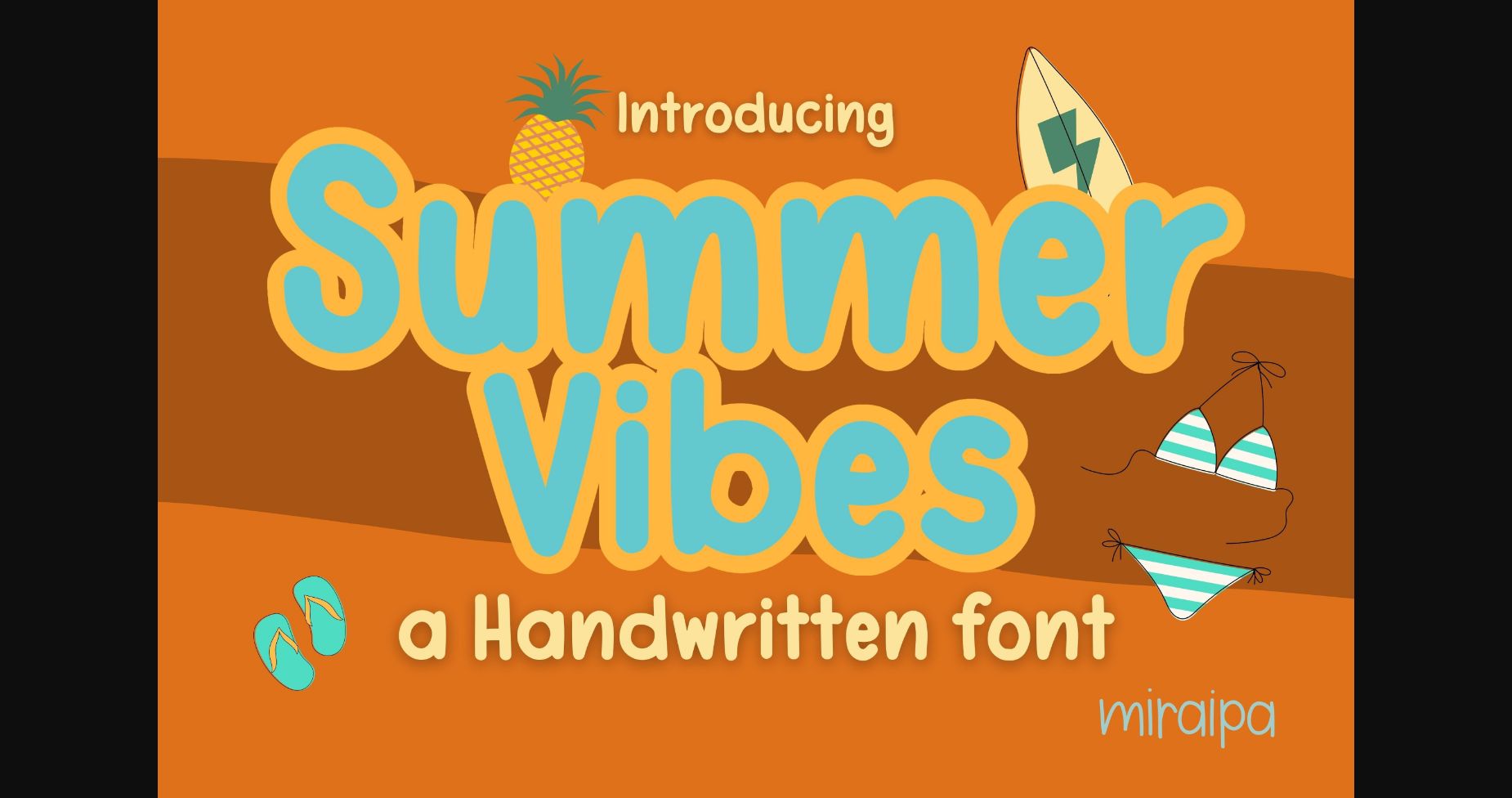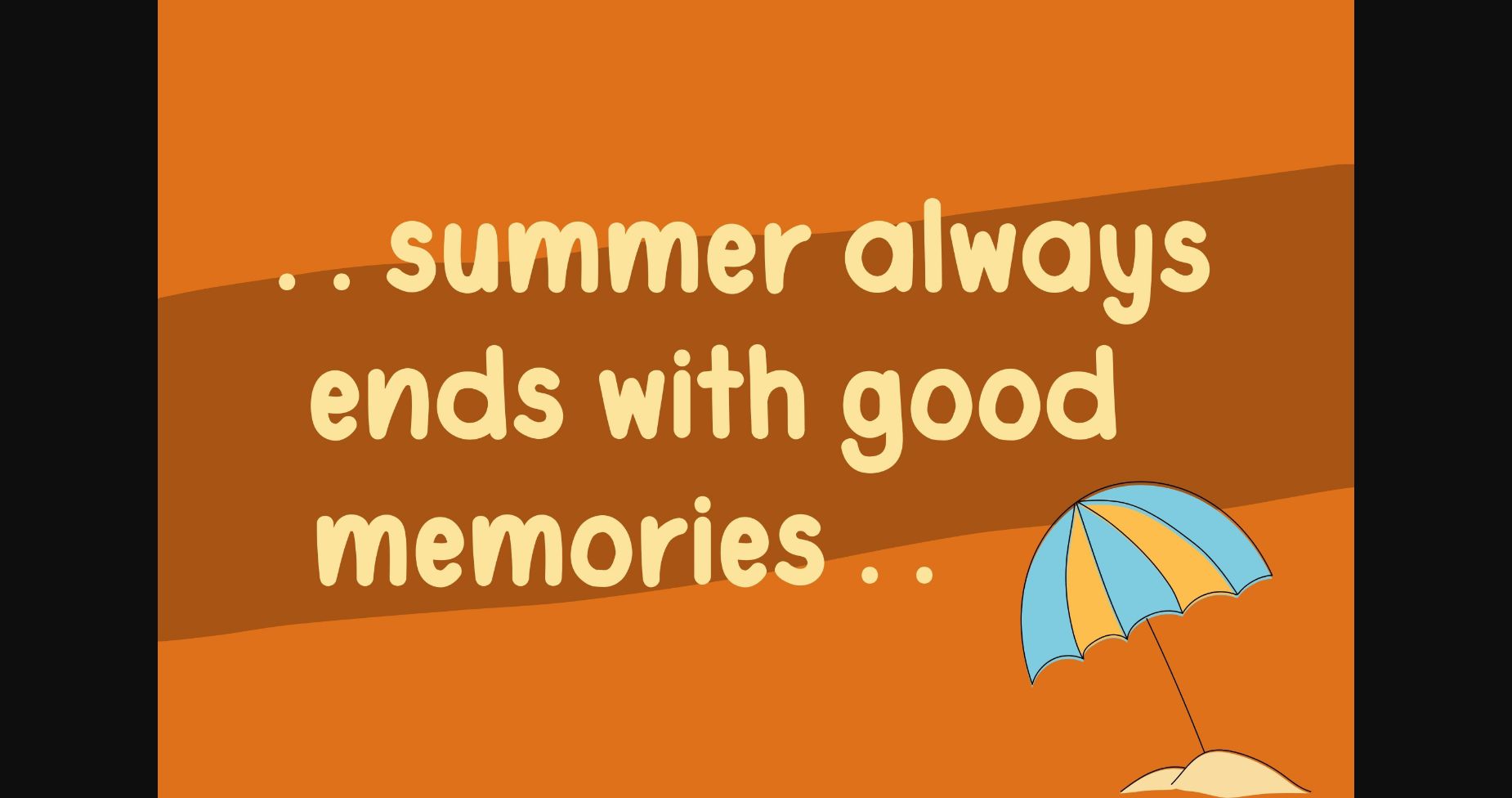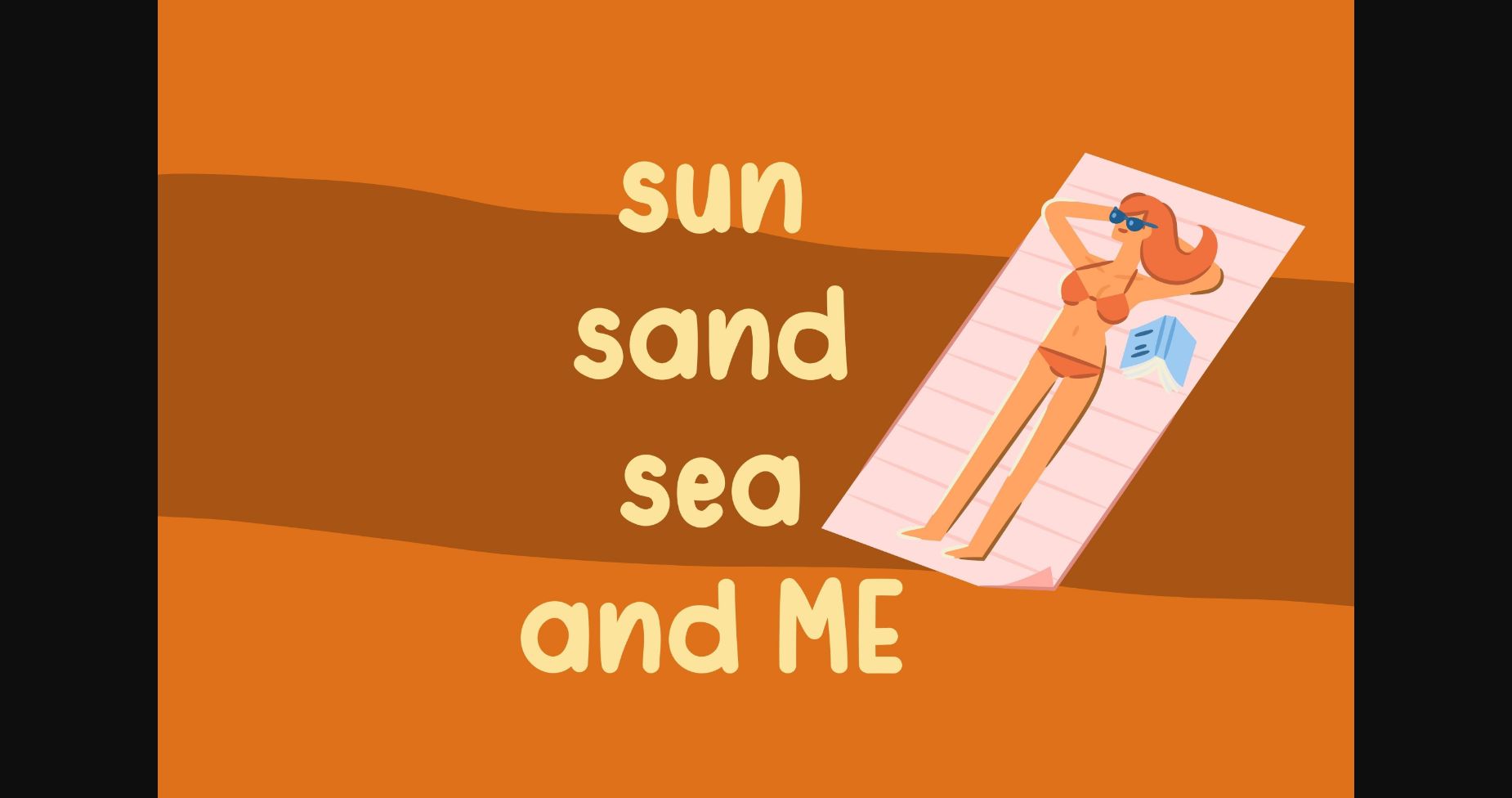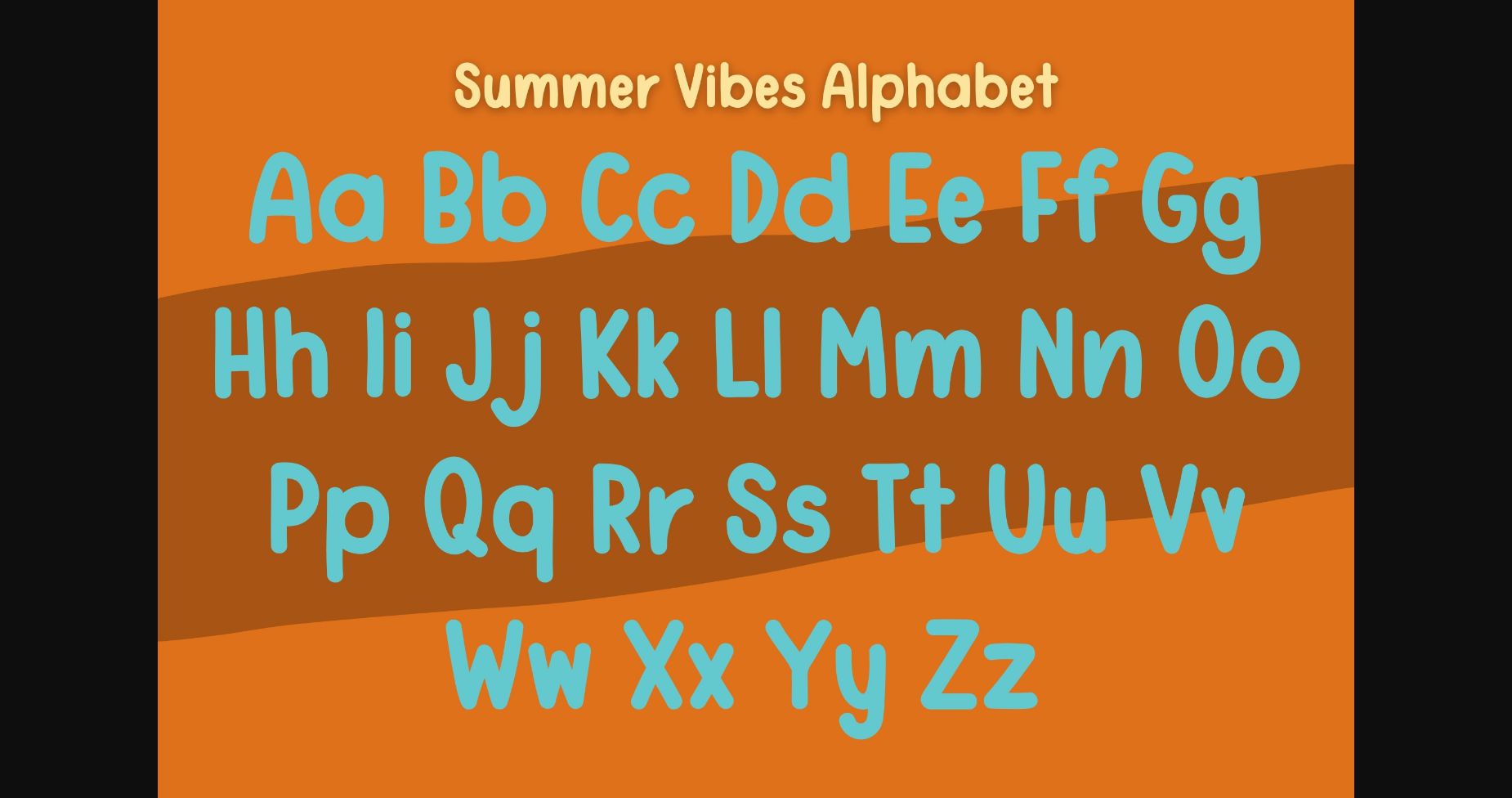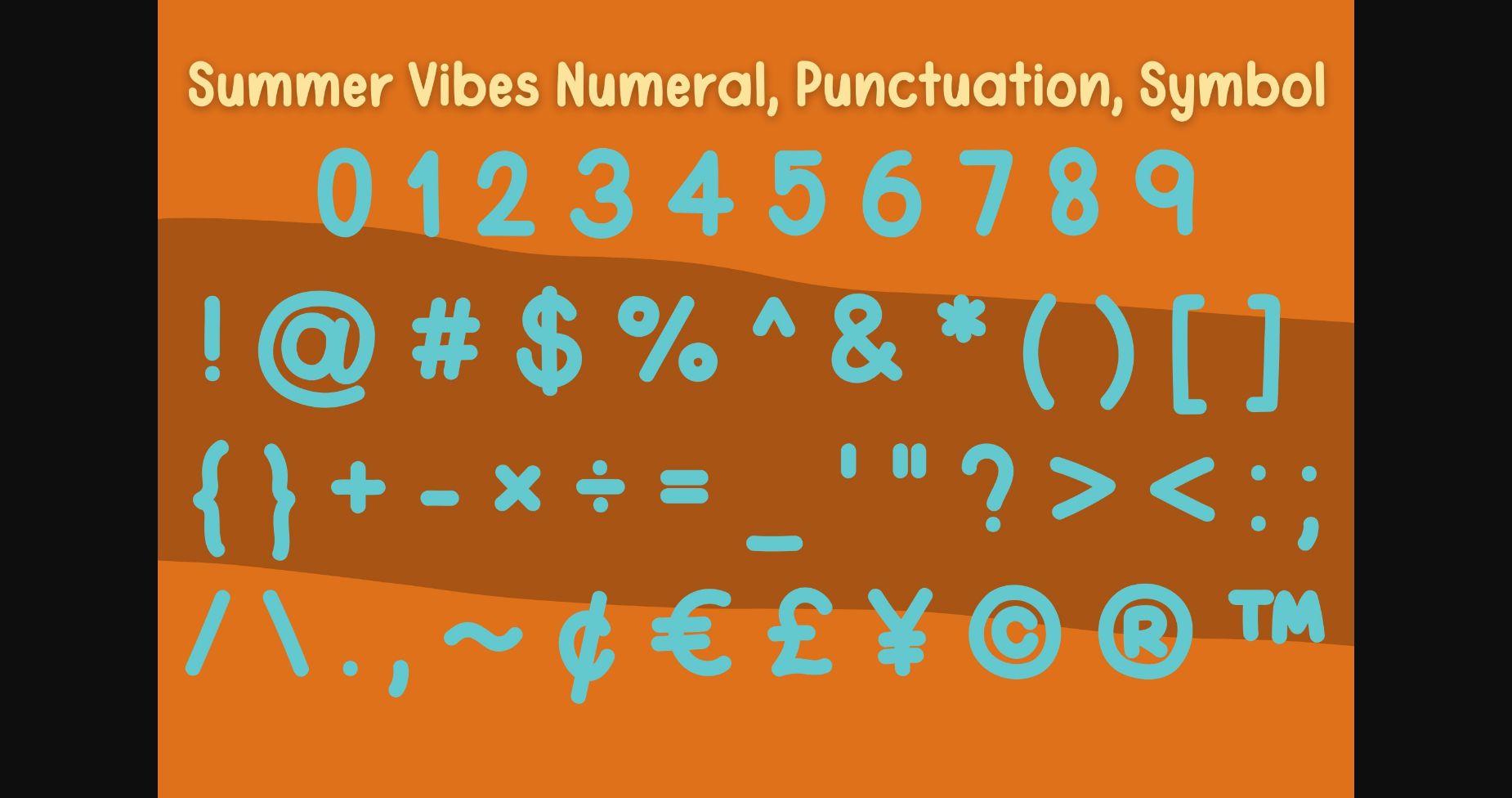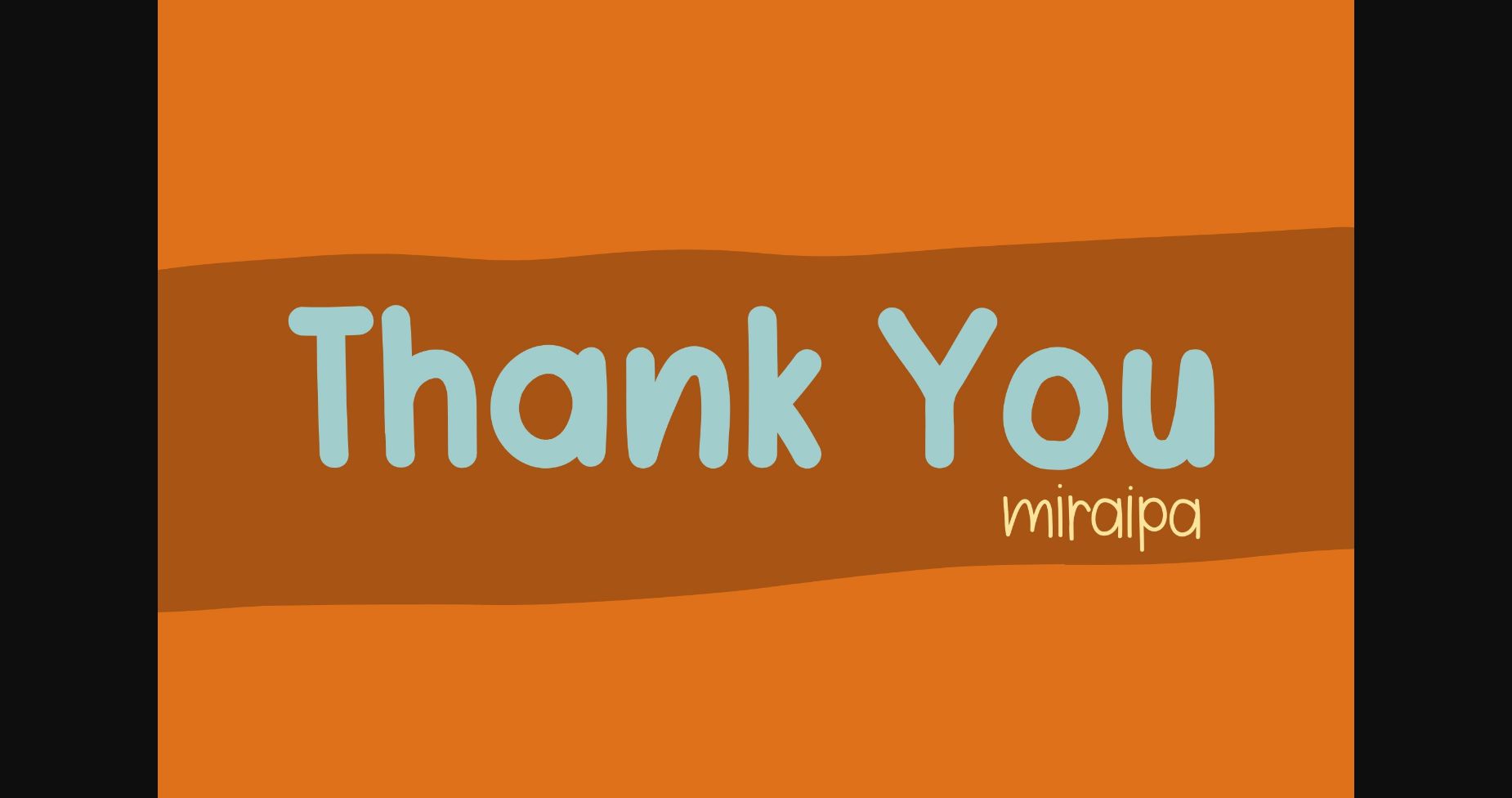
Summer Vibes Font
About Summer Vibes Font
Summer Vibes is a handwritten font designed in a cute and fresh style. It would be awesome for your perfect summer projects such as party invitations, posters, blogs, clothing, child-related designs, greeting cards, social media posts, or anything that needs a friendly touch.